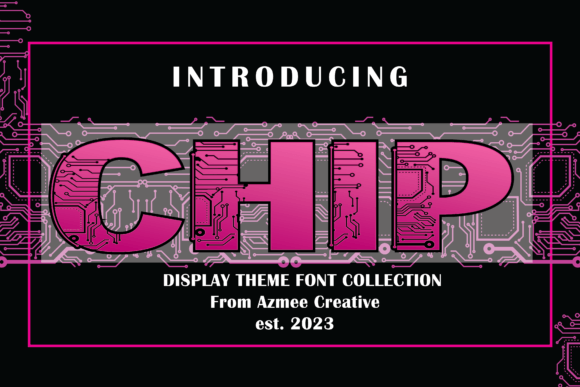
Embark on a Culinary Typographic Adventure with Chip Font - Savor the Visual Feast!
In the realm of gastronomy, presentation plays a pivotal role in tantalizing taste buds and igniting culinary desires. Chip Font, a display font family, emerges as a culinary virtuoso, transforming your food branding efforts into a sensory symphony. Crafted with meticulous precision by Suming Kreatif, Chip Font stands as a testament to the power of typography in shaping perceptions and driving appetites.
Visualize your brand's identity adorned with the delectable curves and bold strokes of Chip Font. Its elegant character shapes dance across menus, packaging, and marketing materials, inviting customers to embark on a gastronomic journey. Whether gracing the pages of a cookbook, adorning food truck signage, or gracing the facade of a Michelin-starred restaurant, Chip Font elevates your culinary creations, making them irresistible to the eye and the palate.
Indulge in a Symphony of Styles:
- Savor the delectable taste of Chip Regular, a classic choice that exudes sophistication and refinement. Its timeless design complements any culinary concept, adding a touch of elegance to menus, labels, and branding elements.
- Delight in the zesty flavors of Chip Bold, a font that commands attention like a master chef. Its audacious strokes and confident presence make it perfect for headlines, posters, and packaging that demands to be noticed.
- Experience the tangy allure of Chip Italic, a font that adds a touch of playfulness and intrigue to your culinary creations. Its graceful curves and dynamic angles infuse a sense of movement and energy into any design.
Unleash Your Culinary Creativity:
- Craft mouthwatering menus that transport customers to a realm of culinary wonders. Chip Font's versatile design seamlessly adapts to diverse cuisines, from classic French fare to vibrant Asian fusion.
- Design packaging that speaks volumes about your brand's commitment to quality and craftsmanship. Chip Font's elegant lines and bold shapes enhance the perception of your products, making them appear more delectable and desirable.
- Create marketing materials that ignite appetites and drive foot traffic. Chip Font's captivating presence on posters, flyers, and social media graphics entices potential customers to embark on a culinary adventure.